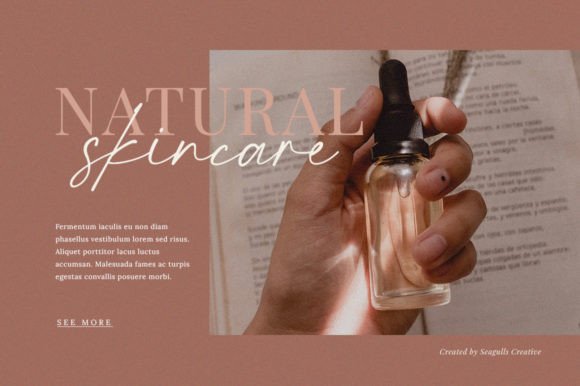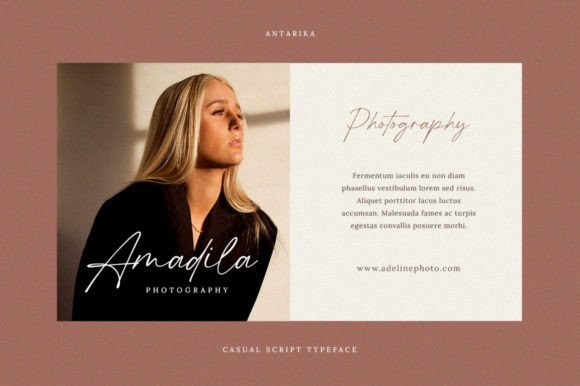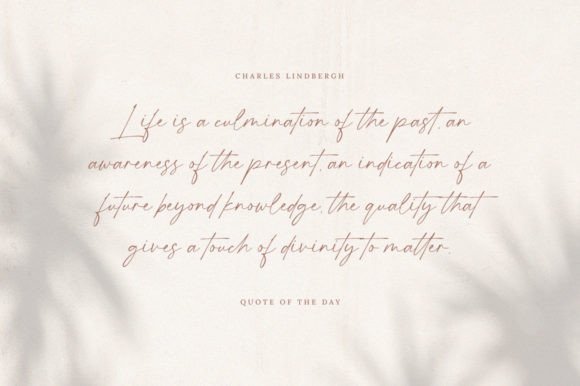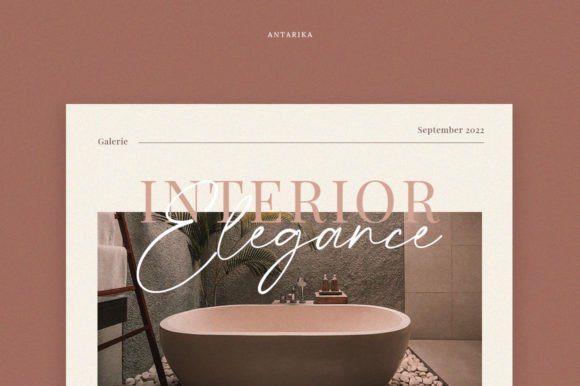
About Antarika Font
**Antarika** is a casual script font characterized by its smooth curves and a harmonious balance between thick and thin lines. This unique blend of design elements makes it a versatile choice for a wide range of design applications, from creating signature logos to enhancing branding, watermarks, photography studio logos, wedding invitations, advertisements, product designs, social media posts, and more.
The font’s casual script style is marked by its effortless flow and approachability. It lends a sense of warmth and personality to your designs, making them engaging and relatable. Whether you’re aiming for a personalized signature look, a cohesive brand identity, or an elegant touch for special occasions, **Antarika** offers the flexibility to adapt to your creative needs.
**Antarika** is well-suited for both digital and print applications, ensuring that your designs maintain their unique character and readability in various contexts. Its blend of thick and thin lines adds a sense of dynamic contrast to your text, drawing attention to key elements and creating visual interest.
What sets **Antarika** apart is its ability to convey a sense of approachable elegance and personalization. It invites your audience to connect with your content on a more intimate level, creating a memorable and relatable experience. With **Antarika** as part of your creative toolkit, you have the means to craft designs that reflect a blend of sophistication and approachability.
**Antarika** offers a range of customization options, allowing you to fine-tune your text to match your creative vision precisely. This flexibility empowers you to create designs that align perfectly with your artistic preferences.
In conclusion, **Antarika** is a versatile and engaging script font that combines the qualities of elegance and approachability. Embrace its smooth curves and dynamic lines, and let it inspire you to create designs that resonate with your audience on a personal level. With **Antarika** at your disposal, your creative possibilities are expansive, enabling you to craft captivating and memorable works of art through its casual yet sophisticated typography.